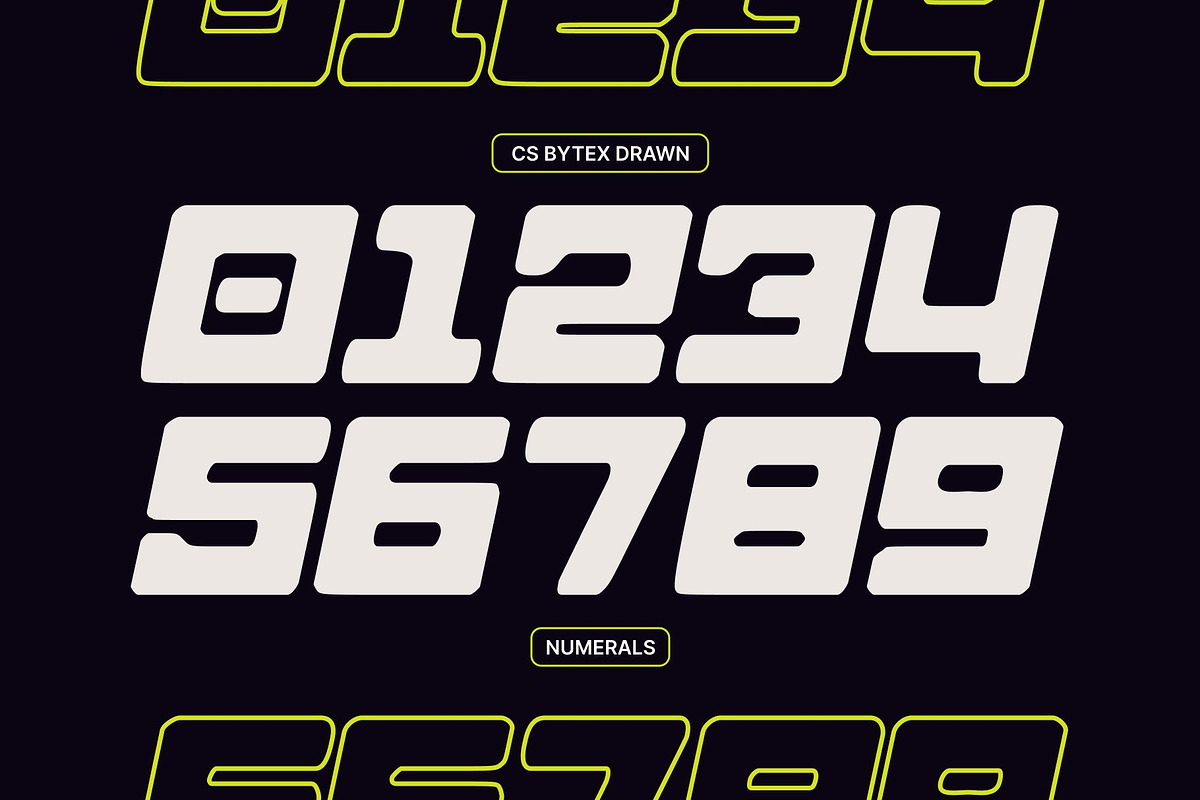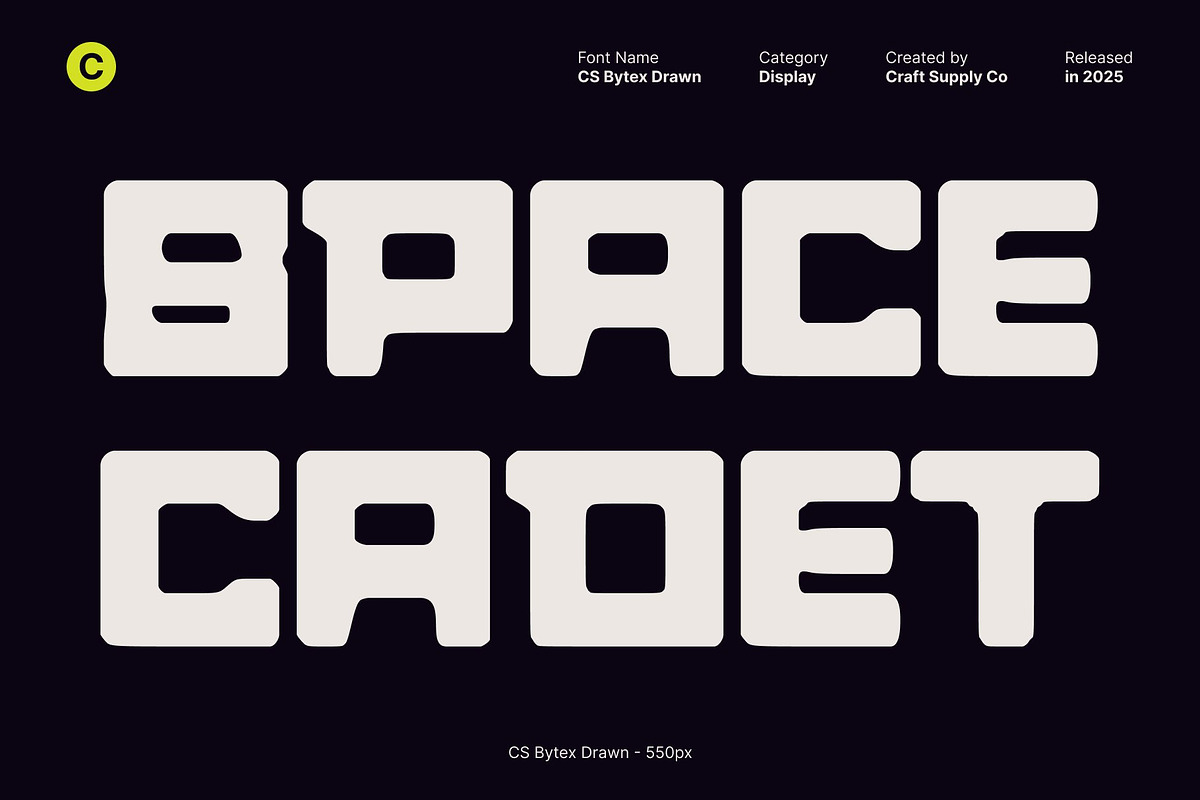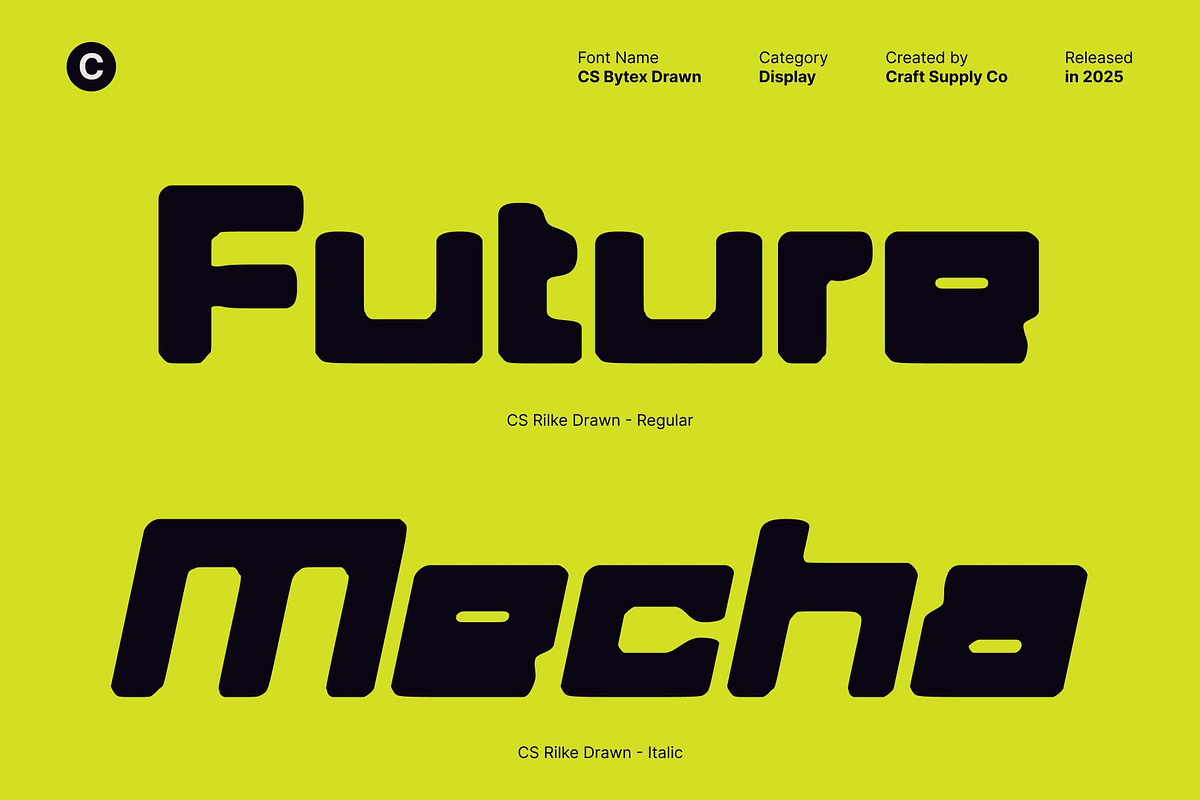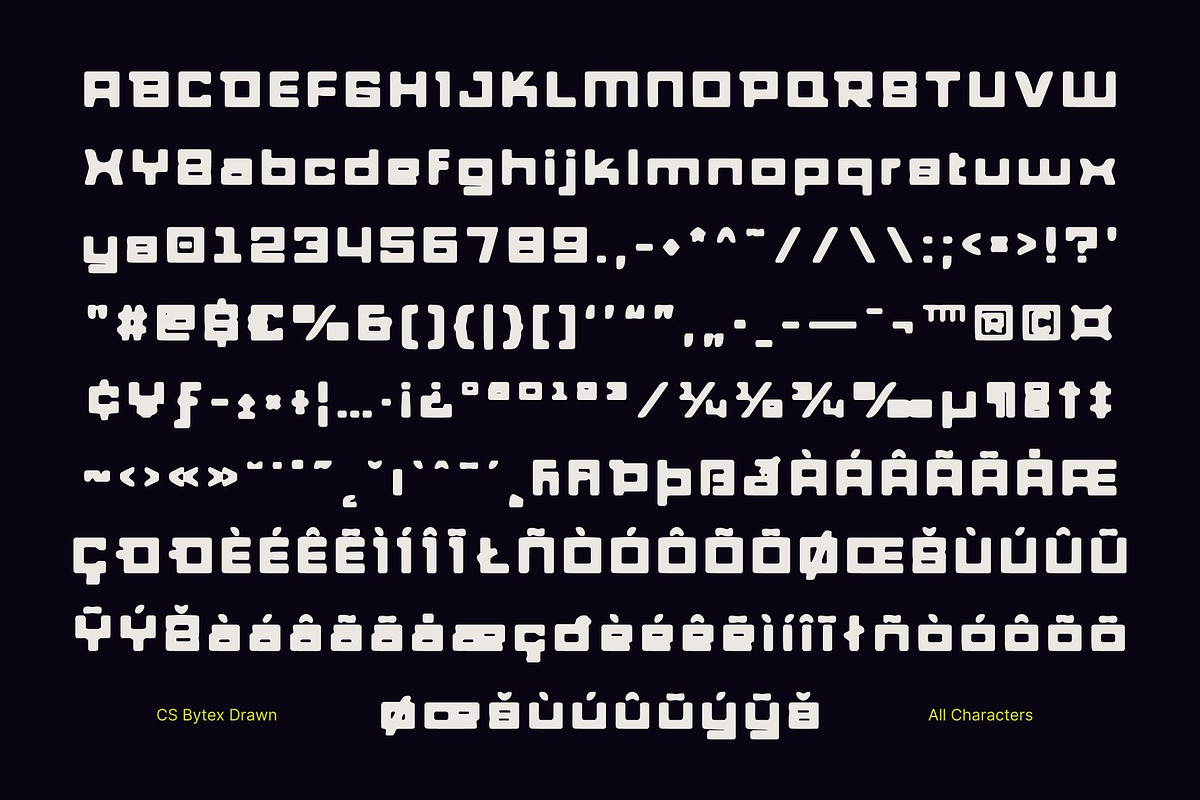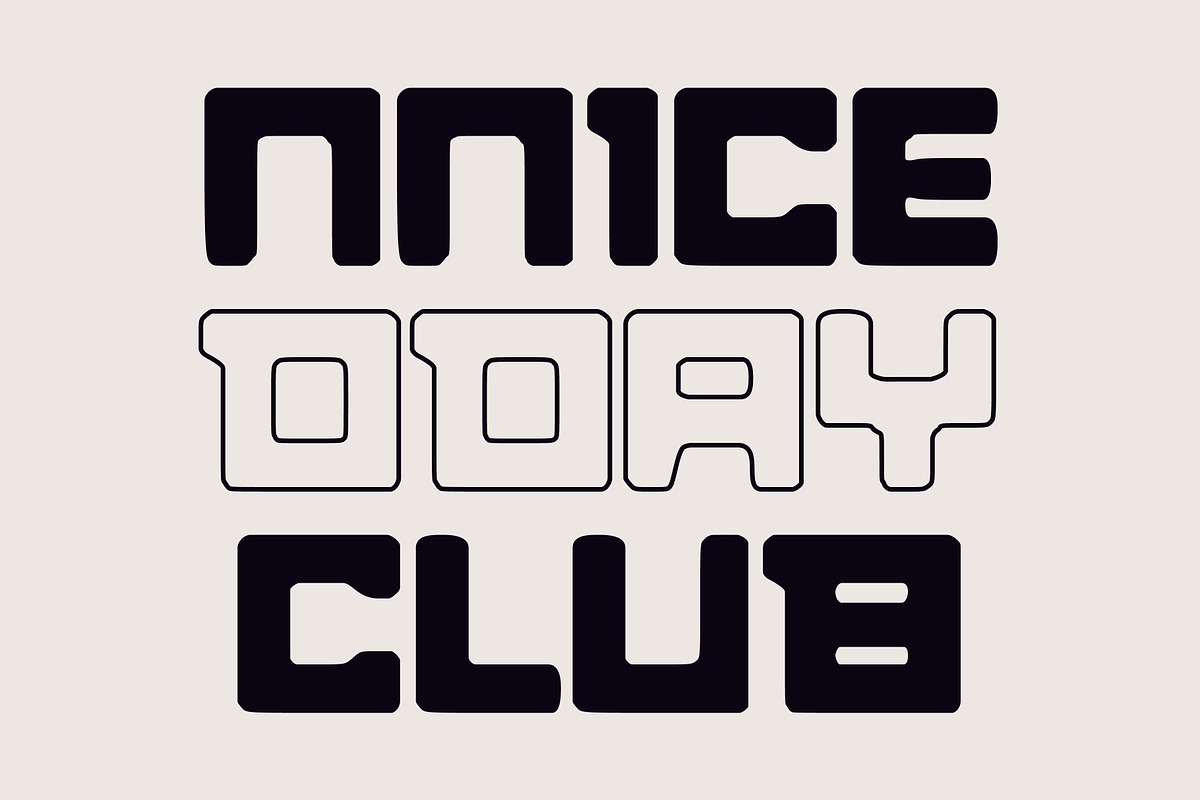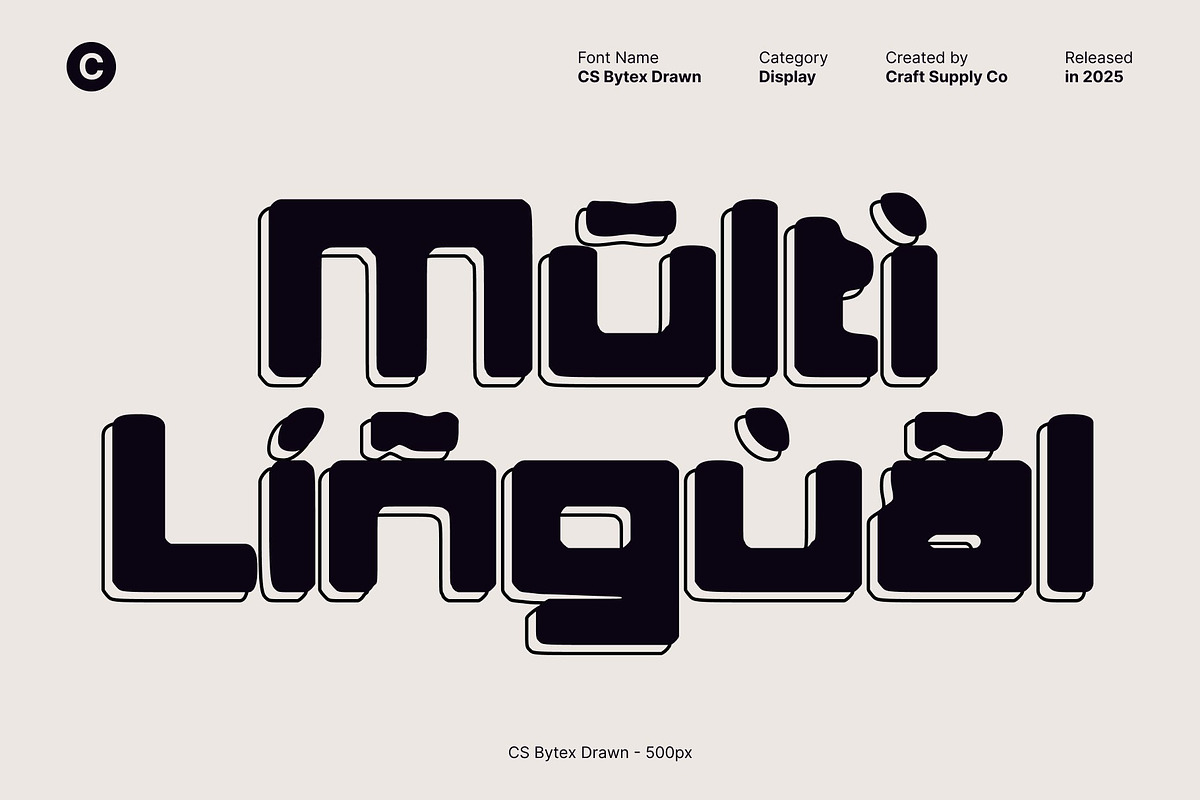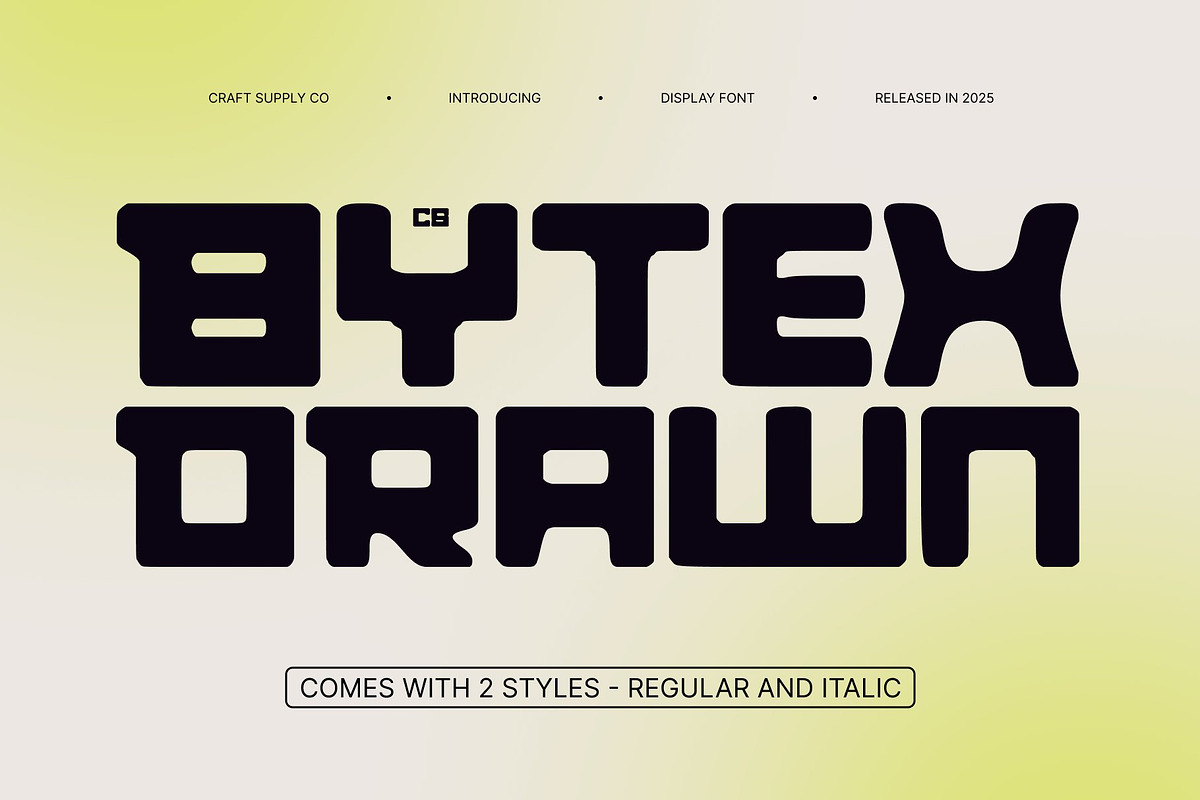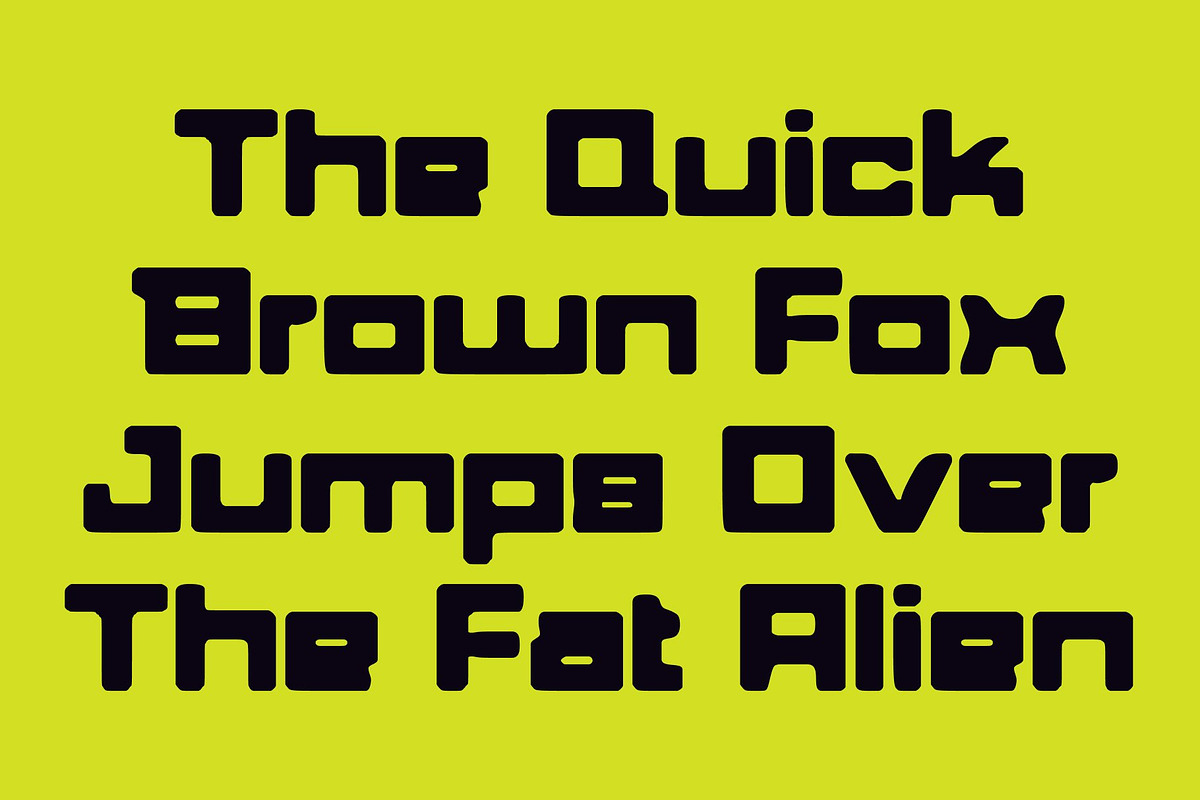
CS Bytex Drawn
CS Bytex Drawn – Bold Energy for the Digital Era
Techno-Inspired Sans Serif with Modern Precision This is a bold sans serif font that captures the spirit of modern technology and digital innovation. Built with clean geometry, sharp edges, and confident proportions, it projects strength, clarity, and precision. The hand-drawn texture subtly softens its rigid structure, adding character while maintaining a futuristic, high-tech aesthetic that commands attention.
Striking Letterforms with a Futuristic Edge Each character is carefully designed to balance structure and expression. The sharp contours and solid weight create an assertive visual rhythm, giving the font a dynamic and forward-thinking presence. Its techno-inspired construction makes it ideal for designs that emphasize progress, innovation, and digital sophistication.
Perfect for Branding and Contemporary Design This font excels in branding, logos, posters, and digital interfaces that require a bold modern voice. It works especially well for technology companies, gaming brands, startups, and futuristic campaigns, delivering clarity and authority across both digital and print platforms.
Bold, Clean, and Unapologetically Modern More than just typography, this font is a visual statement. Its strong structure, modern attitude, and drawn texture combine to create a font that feels powerful yet expressive. Use it to elevate designs that demand impact, precision, and a distinctly futuristic identity.